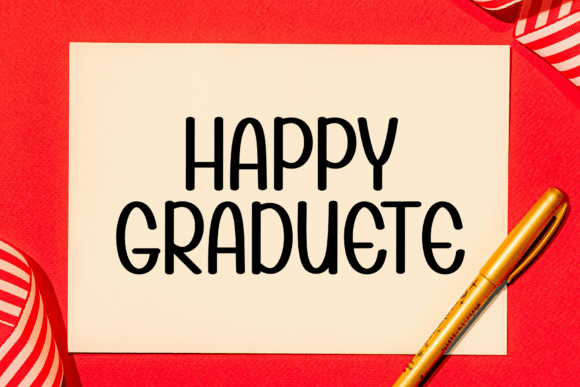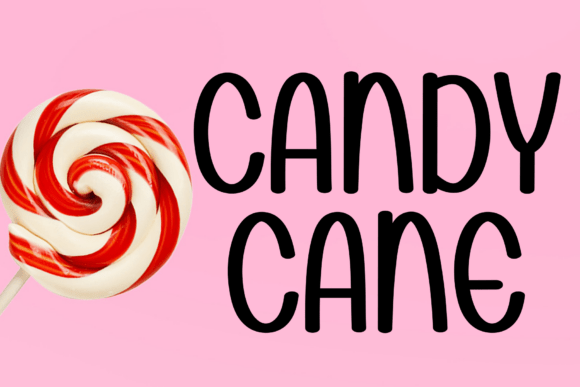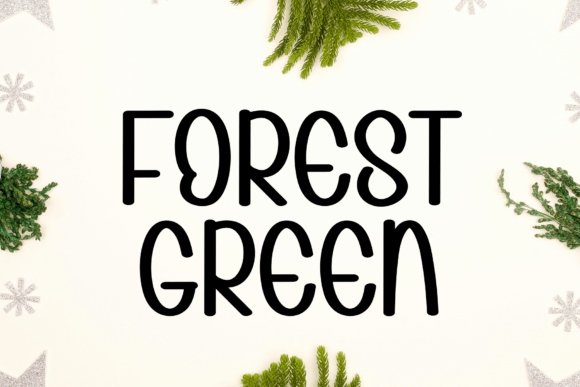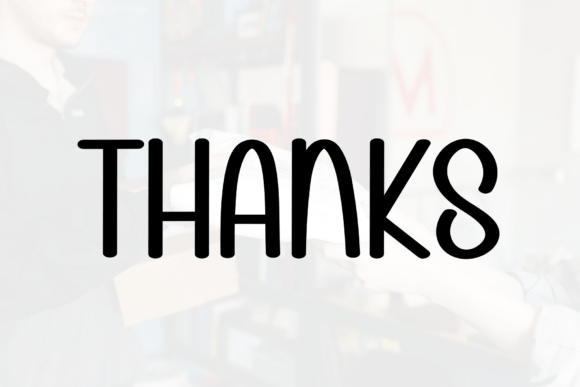
Introducing Harvest Story Font: A Charming Handwritten Delight
Are you on the hunt for a font that exudes warmth, comfort, and a sense of perfection? Look no further than Harvest Story Font, a beautiful handwritten font that is sure to capture your heart. With its smooth strokes and organic lines, this delightful font is perfect for a wide range of design projects, from branding and invitations to social media graphics and more.
The Charm of Harvest Story Font
Harvest Story Font is a charming handwritten font that is filled with a sense of heartfelt perfection. Its unique and elegant design makes it perfect for designers and crafters who want to add a personal touch to their work. The font’s smooth strokes and organic lines evoke a relaxed atmosphere, making it ideal for designs that require a friendly and approachable feel.
One of the best things about Harvest Story Font is its versatility. Whether you’re working on a branding project, creating invitations for a special event, or designing social media graphics, this font is sure to impress. Its elegant and refined design makes it perfect for:
- Branding: Use Harvest Story Font to create a unique and memorable brand identity that reflects your company’s values and personality.
- Invitations: Create beautiful and elegant invitations for weddings, parties, and other special events.
- Social Media Graphics: Use Harvest Story Font to create eye-catching social media graphics that will help you stand out from the crowd.
- Packaging: Add a personal touch to your product packaging with Harvest Story Font.
What Makes Harvest Story Font Special?
So, what sets Harvest Story Font apart from other fonts? Here are just a few things that make it special:
- Unique and Elegant Design: Harvest Story Font has a unique and elegant design that is sure to capture your heart.
- Smooth Strokes and Organic Lines: The font’s smooth strokes and organic lines evoke a relaxed atmosphere, making it perfect for designs that require a friendly and approachable feel.
- Highly Versatile: Harvest Story Font is highly versatile and can be used for a wide range of design projects.
Tips for Using Harvest Story Font
Here are a few tips for using Harvest Story Font in your design projects:
- Pair it with Other Fonts: Harvest Story Font pairs well with other fonts, so don’t be afraid to experiment with different combinations.
- Use it for Headings and Titles: The font is perfect for headings and titles, so use it to add a touch of elegance to your designs.
- Experiment with Different Colors: Harvest Story Font looks great in a variety of colors, so experiment with different colors to find the one that works best for your design.